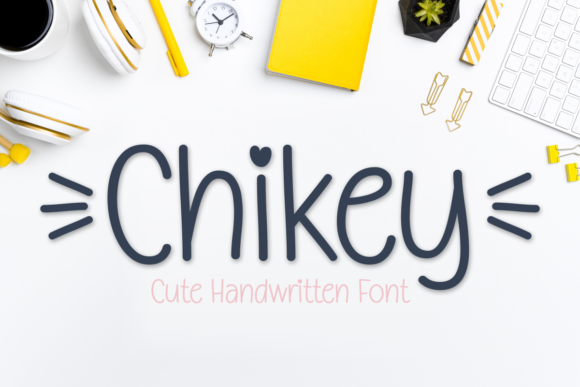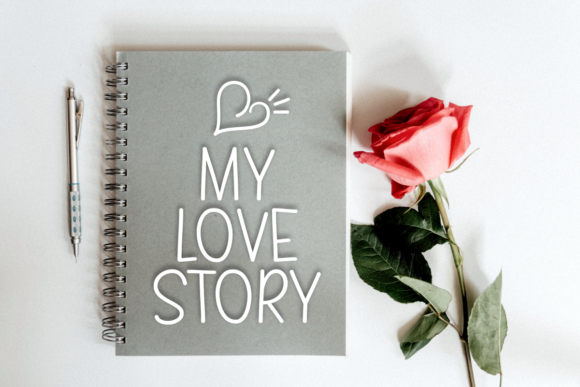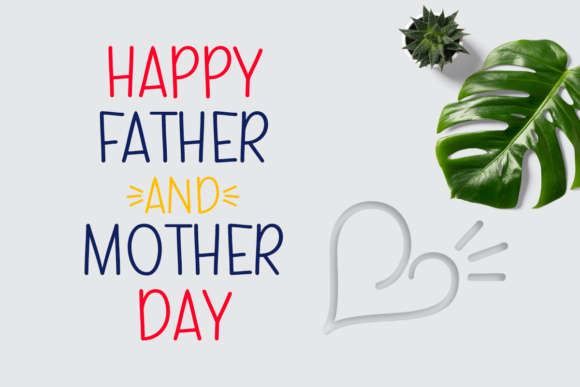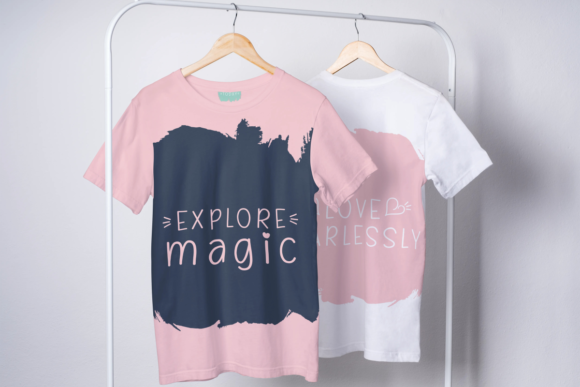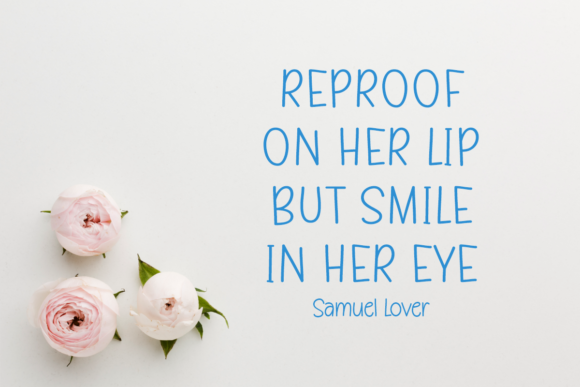
Chikey Font
About Chikey Font
Chikey is a very simple and cute handwritten font. As a result of its versatility, this font is ideal for a great spectrum of designs, both formal and informal.